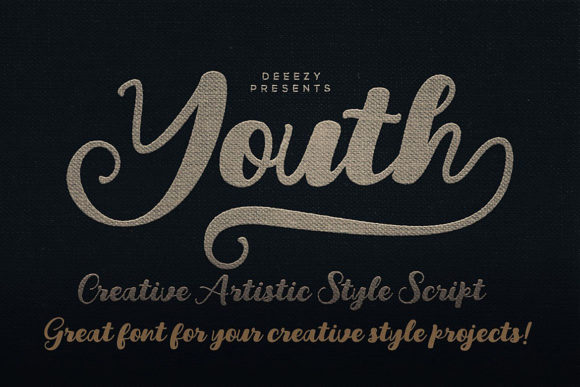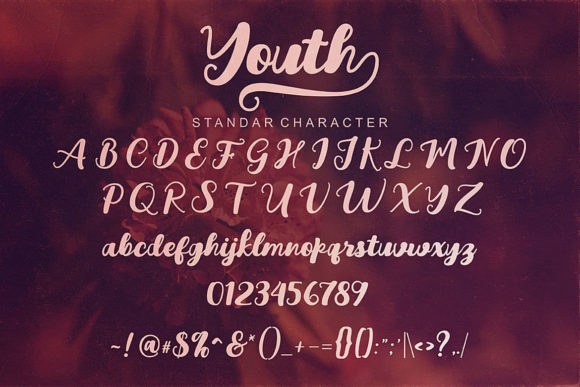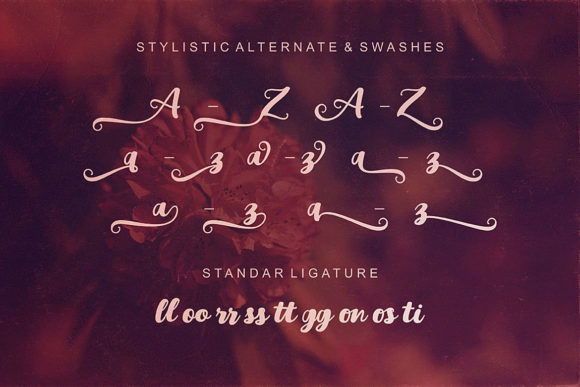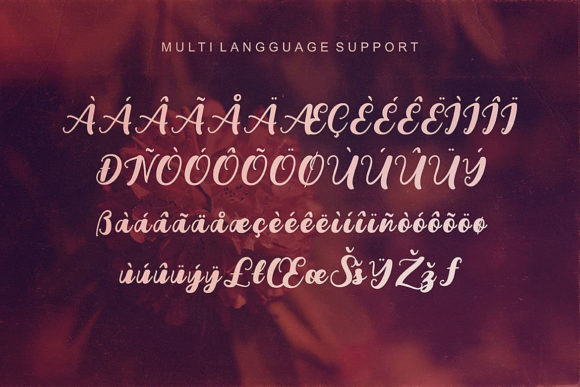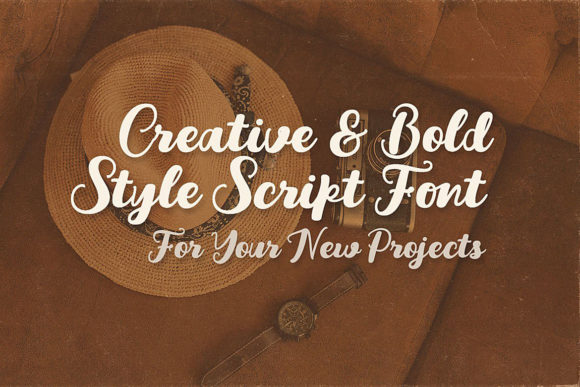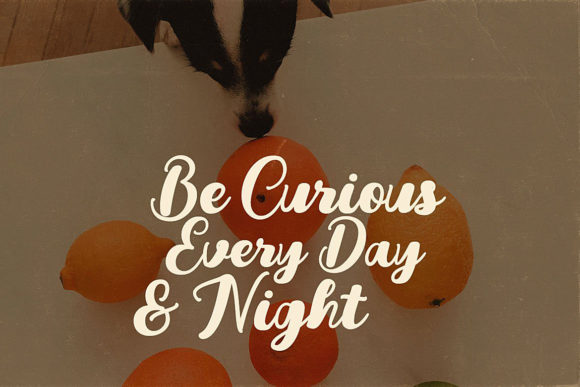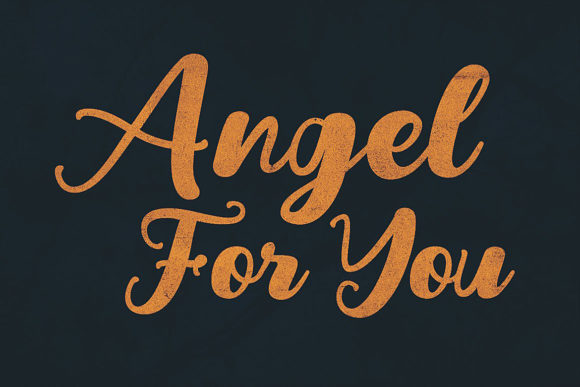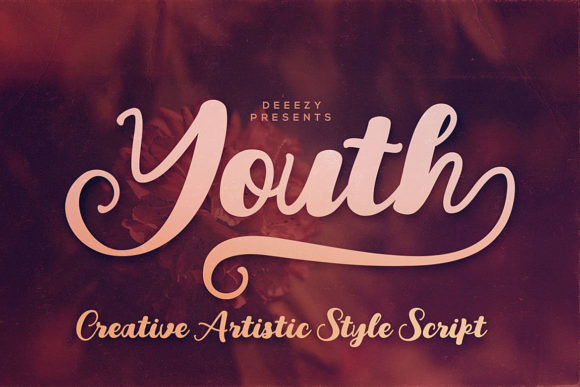
Youth Font
About Youth Font
Fall in love with Youth, a beautiful and charming handwritten font with an incredible feel. It will add a touch of authenticity to any creative idea.